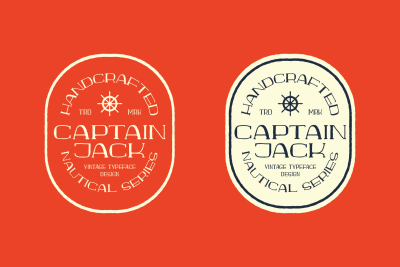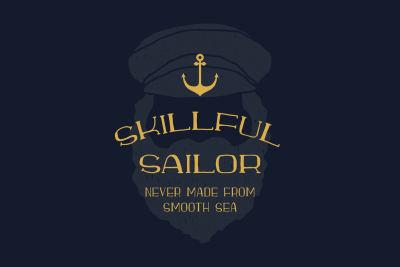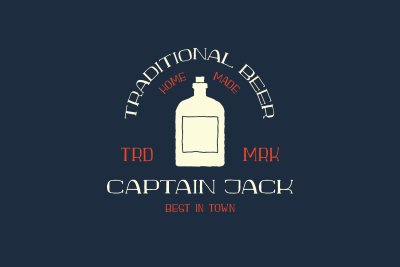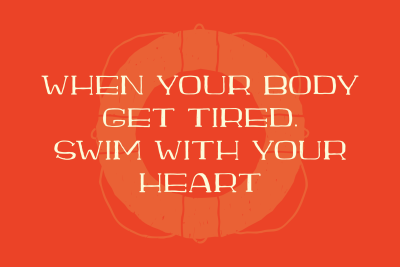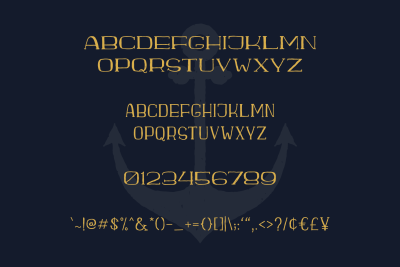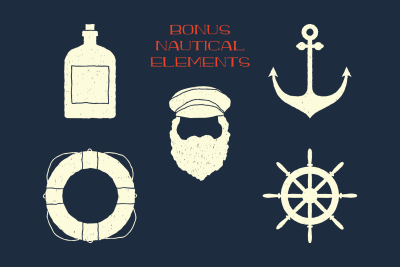
Western Font Captain Jack is a meticulously hand-crafted typeface that exudes vintage charm and nautical appeal. Inspired by maritime culture and the timeless allure of seafaring adventures, it combines bold, angular uppercase letters with a thin, delicate lowercase script. This pairing not only creates a striking contrast but also makes the font versatile for various creative uses.
In addition to its unique letterforms, Western Font Captain Jack offers bonus nautical elements, including anchors, ropes, and badges. These extras allow designers to craft cohesive and visually appealing projects effortlessly. Moreover, the hand-drawn imperfections give the font an organic feel, perfect for evoking authenticity and craftsmanship. Whether you’re creating vintage-inspired logos, eye-catching posters, or product packaging, this font ensures your work stands out. Furthermore, its editable label option provides additional flexibility, making it easy to customize for branding purposes.
What sets this typeface apart is its ability to balance ruggedness with elegance. On one hand, it reflects the bold spirit of adventure; on the other, it retains a sense of sophistication. As a result, is ideal for projects that need to blend tradition with modernity.
Western Font Captain Jack Who Is It For?
Western Font Captain Jack is perfect for designers, marketers, and small business owners seeking a rustic and vintage aesthetic. For example, it works exceptionally well for craft breweries, handmade goods, lifestyle brands, and nautical-themed businesses. In particular, artisans and boutique stores can use this font to create a distinctive brand identity that resonates with their audience.
Additionally, graphic designers working on Western or maritime-themed projects will find this font indispensable. It is especially useful for creating logos, product labels, signage, or even social media content that tells a story. Furthermore, heritage brands and outdoor-themed ventures can leverage the fontโs timeless quality to strengthen their visual appeal.
Overall, this font suits anyone who values authenticity, craftsmanship, and a sense of adventure in their designs. Whether youโre designing for print or digital, Western Font Captain Jack ensures your creations leave a lasting impression.